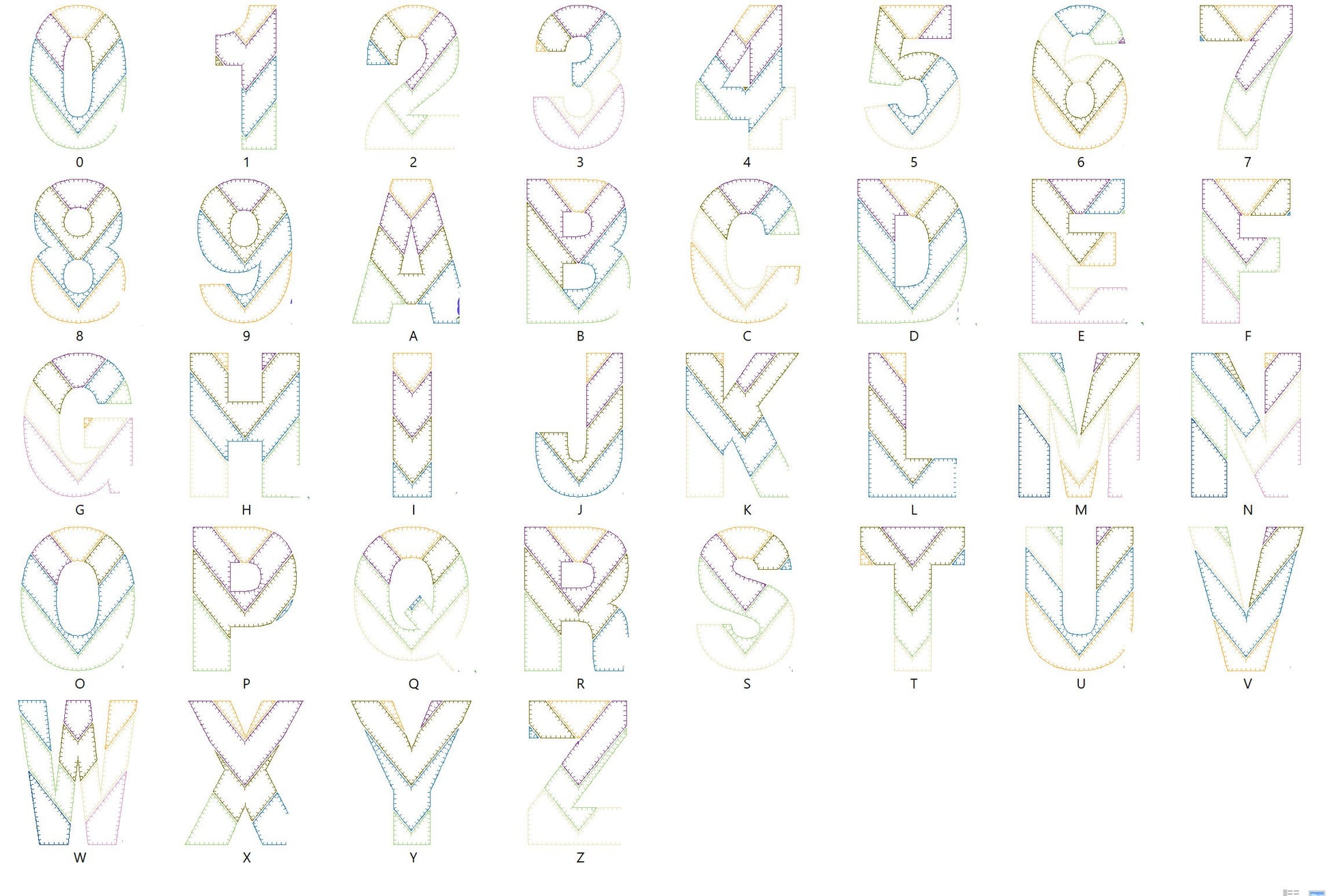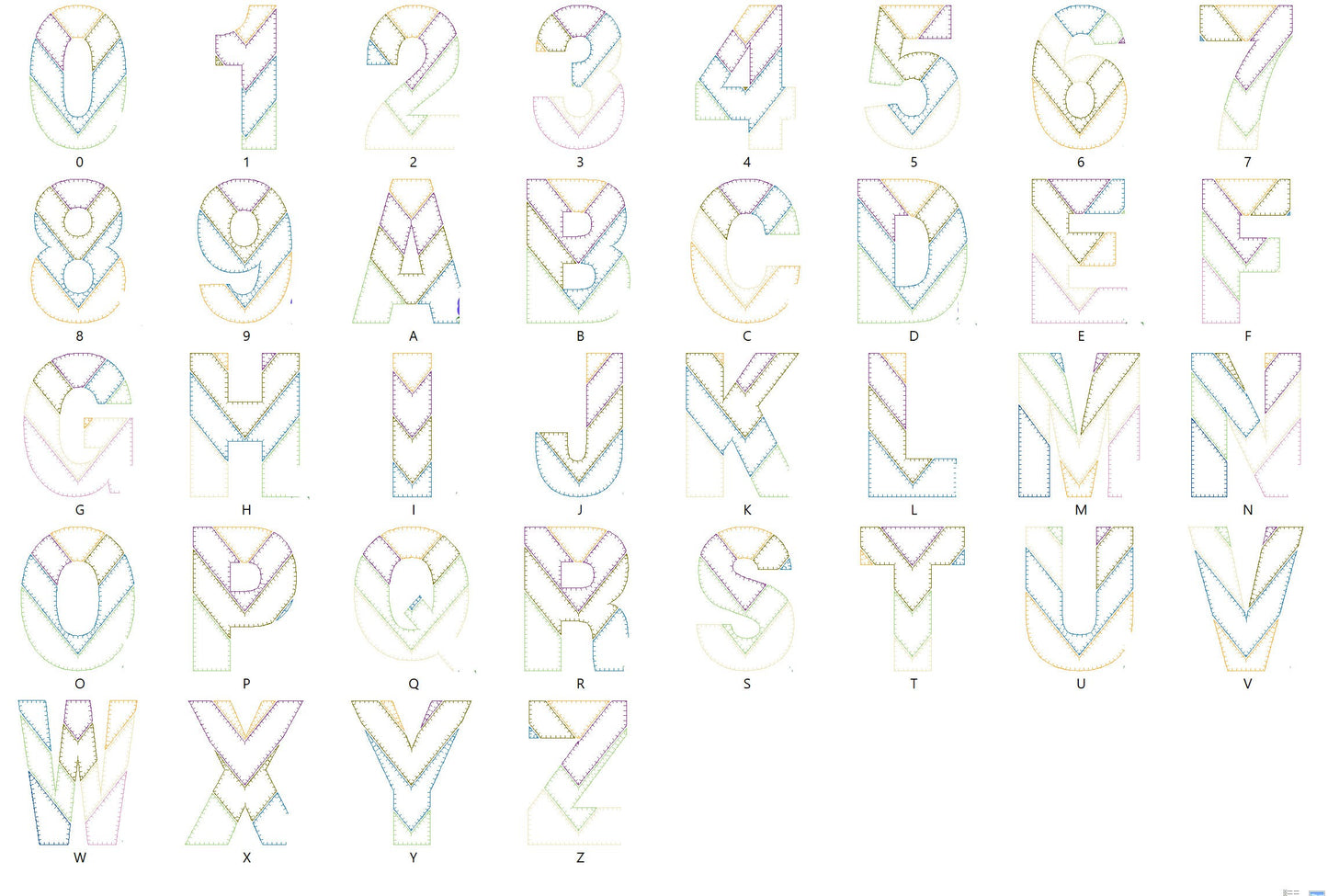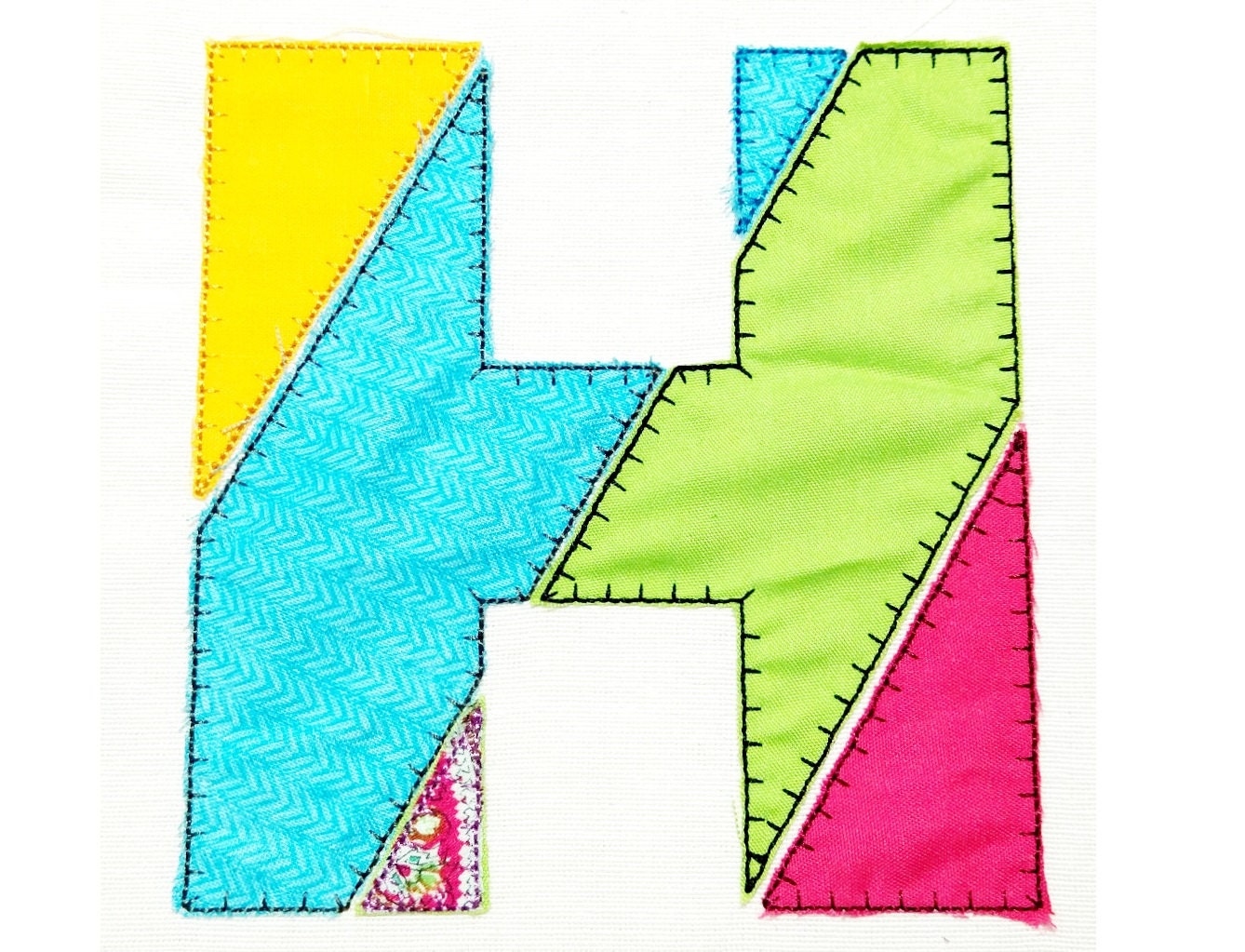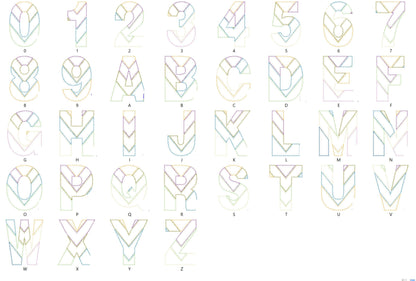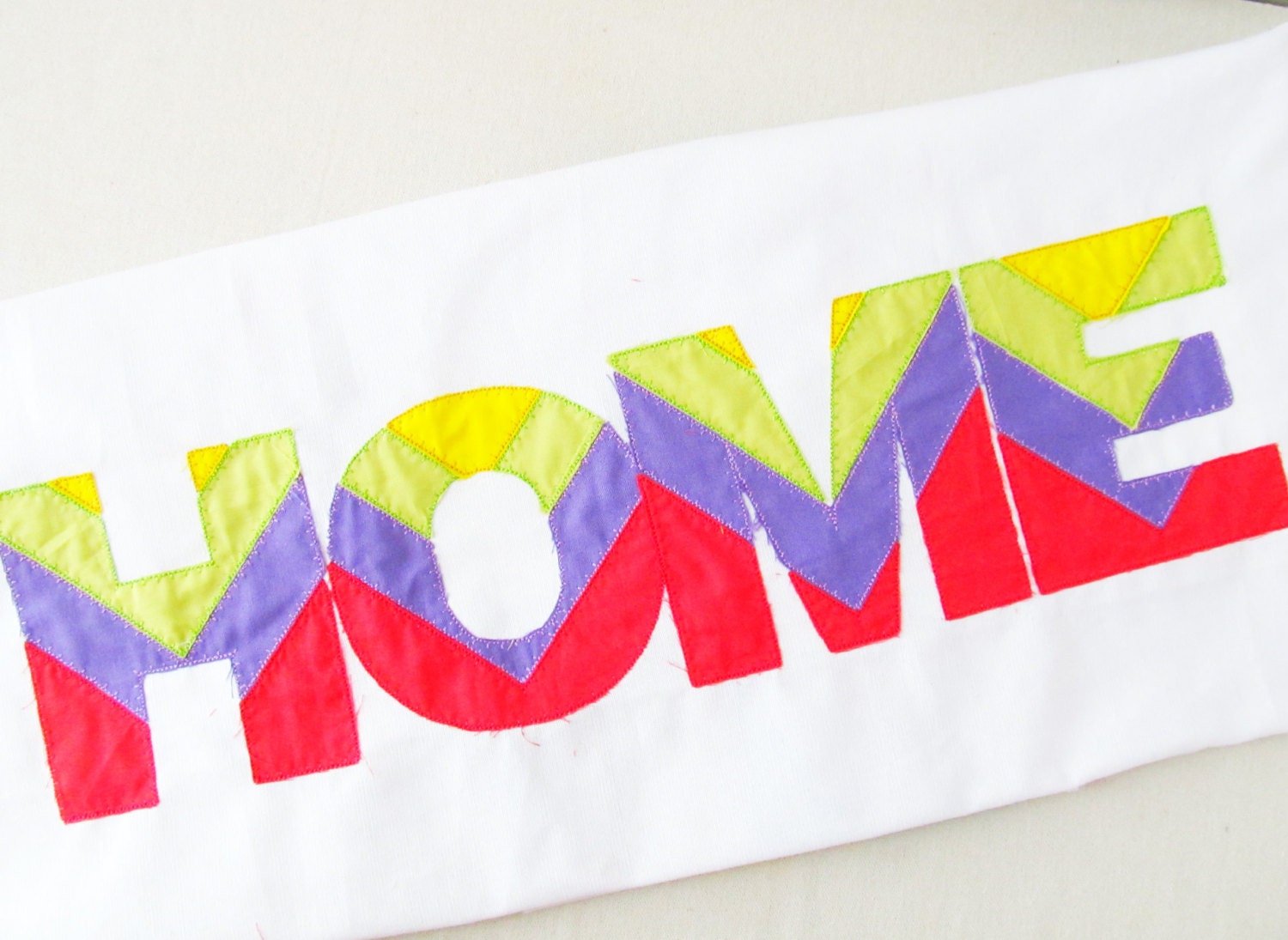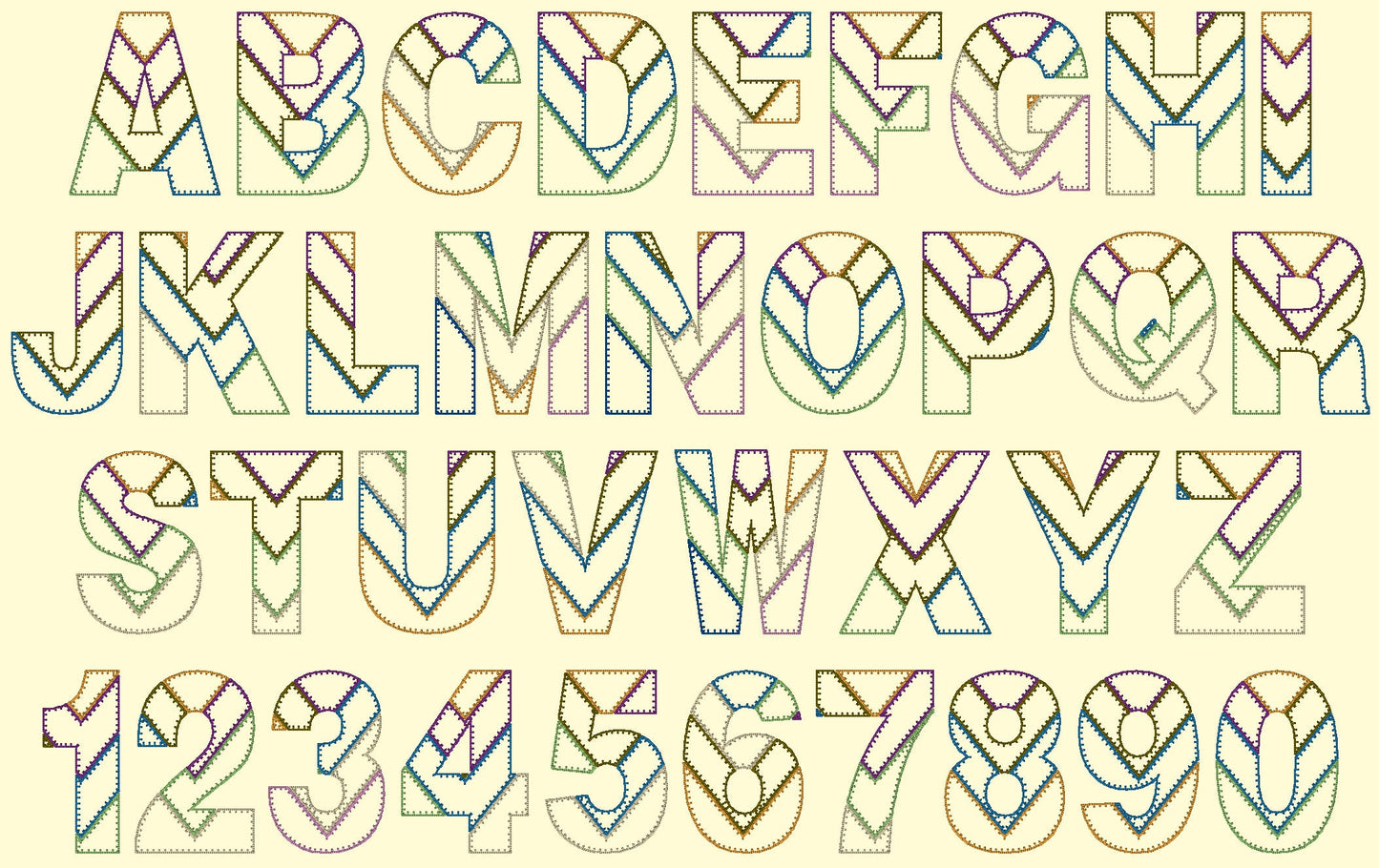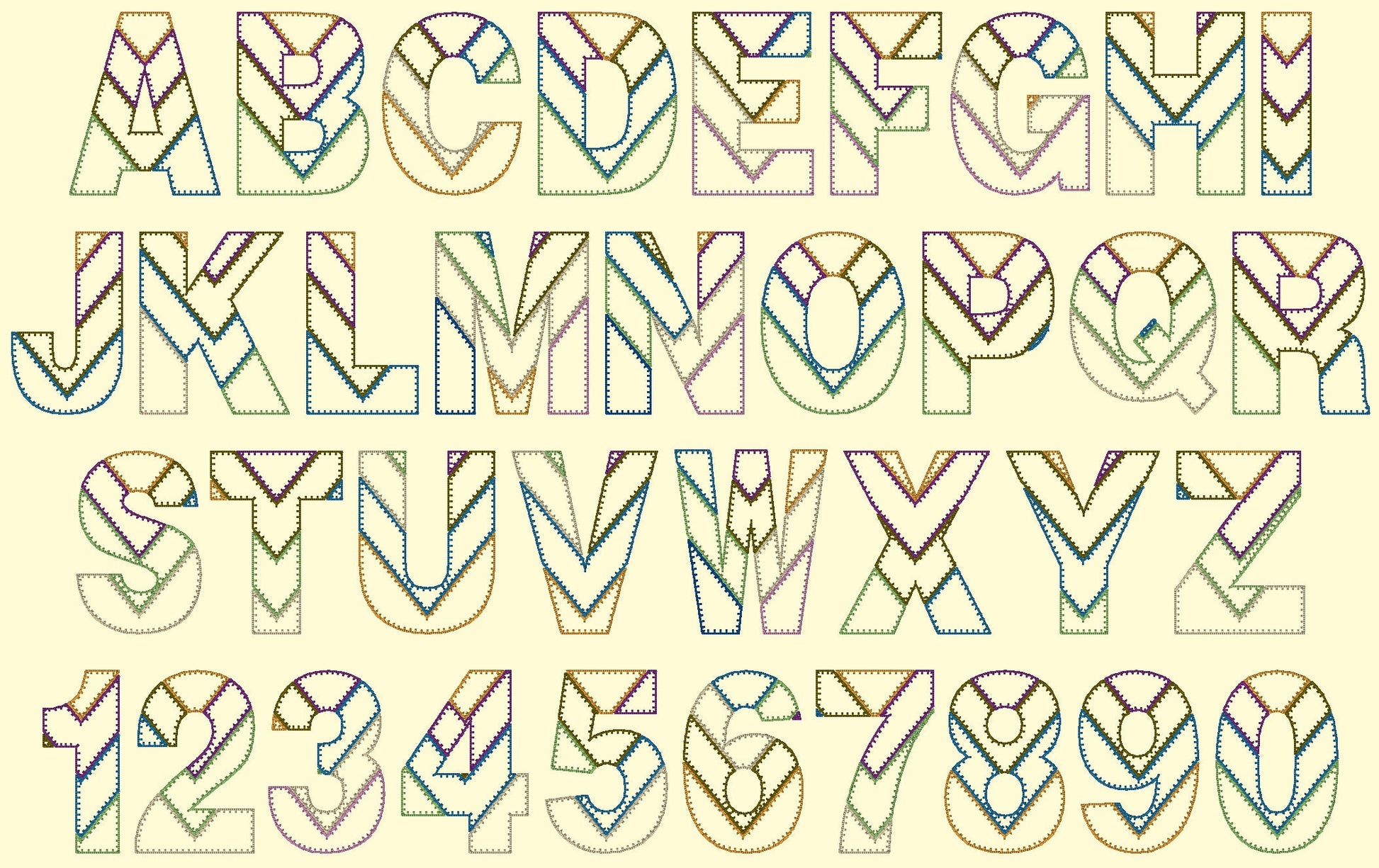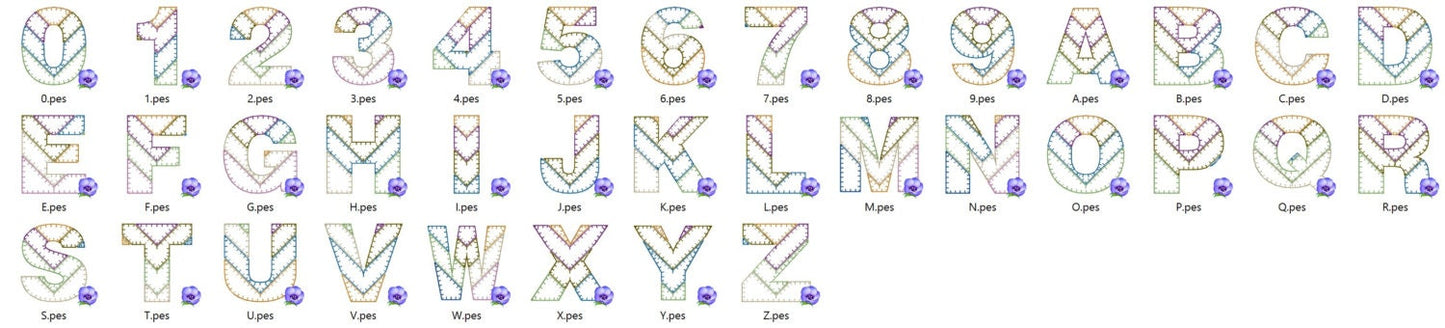
Diagonal Patchwork Rag Edges Font Applique
Or click to open the linkA patchwork applique font with diagonal bias strips and rag edges. Use up fabric scraps for quilts, birthday shirts and learning materials.
Capital letters A to Z and numbers 0 to 9 in five sizes: 3, 4, 5, 6 and 7 inches. Each section has its own placement line and tack-down seam, so you can put a different fabric in every strip.
- Diagonal patchwork rag edge applique font
- Capital letters A-Z, numbers 0-9
- 5 sizes, 3 to 7 in